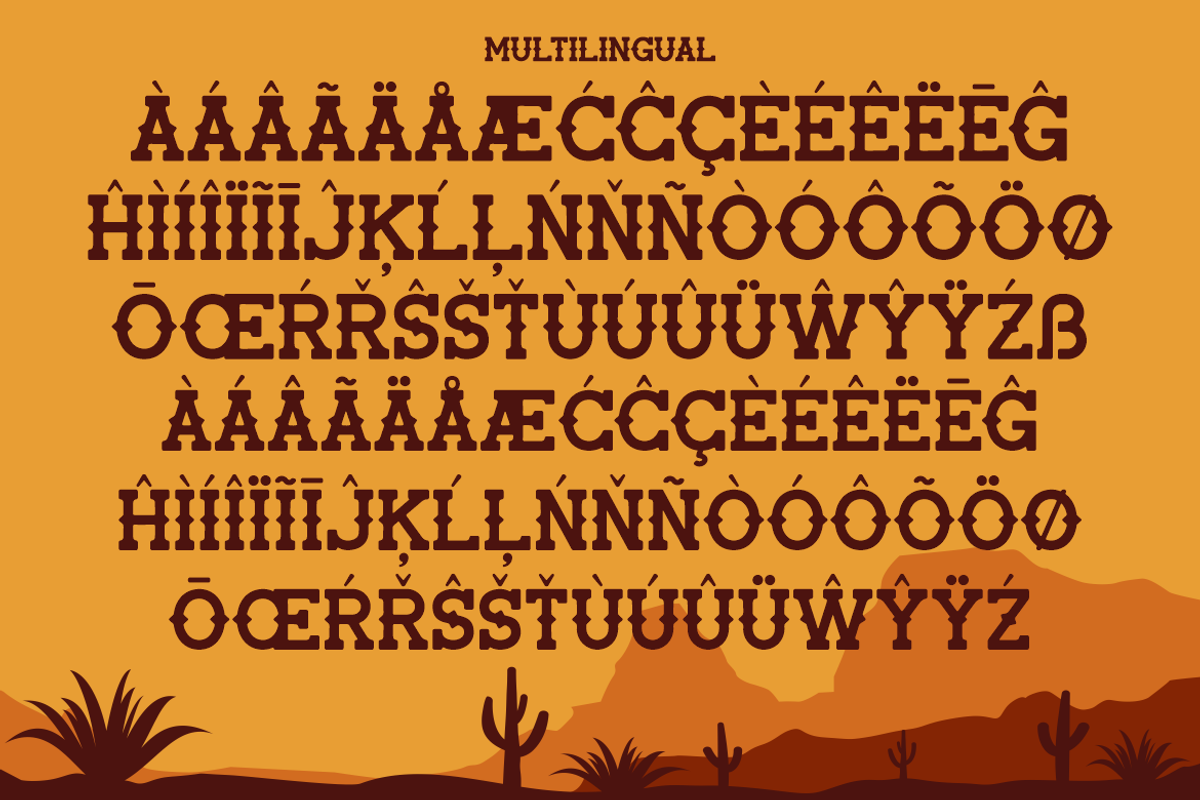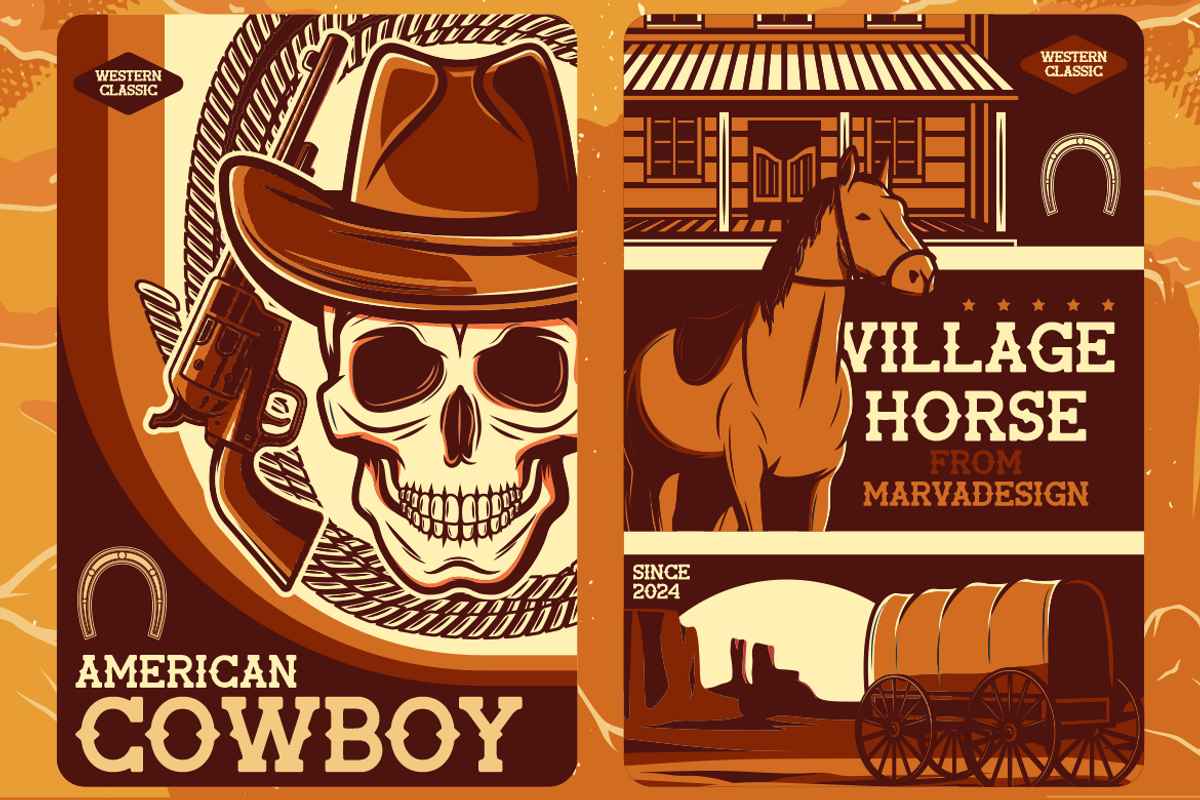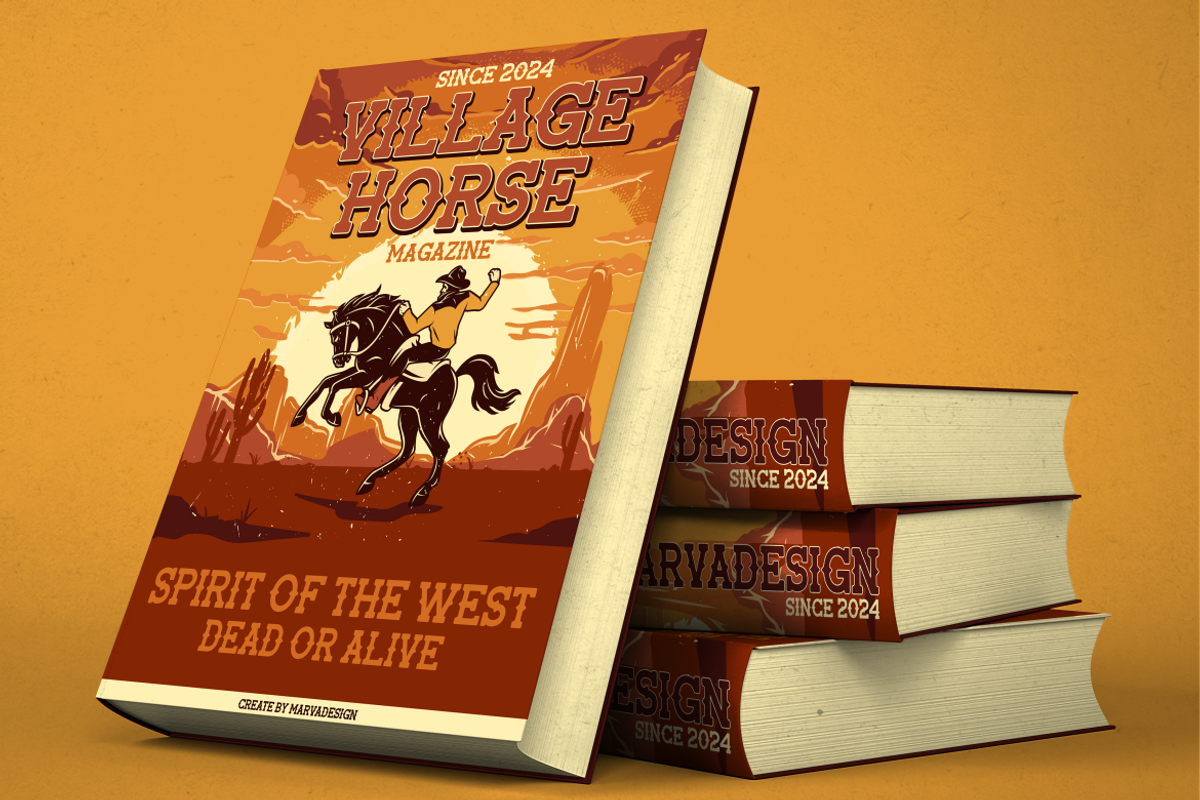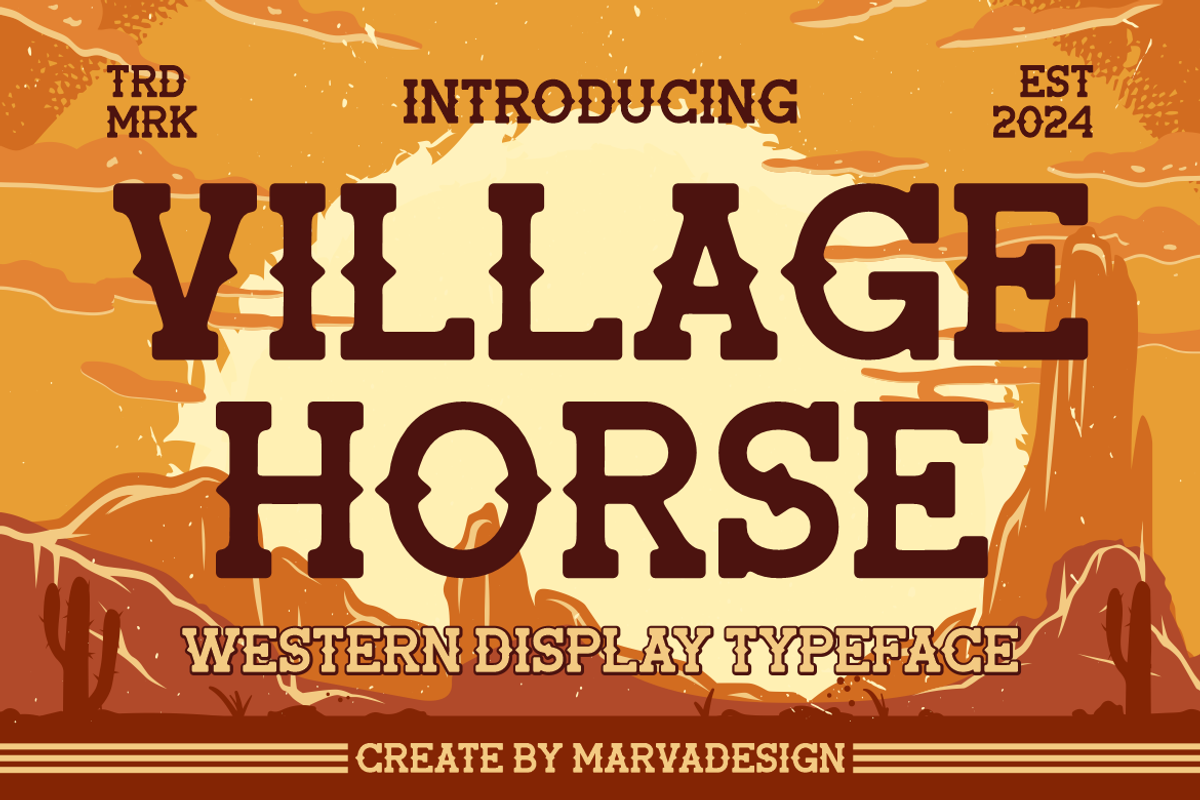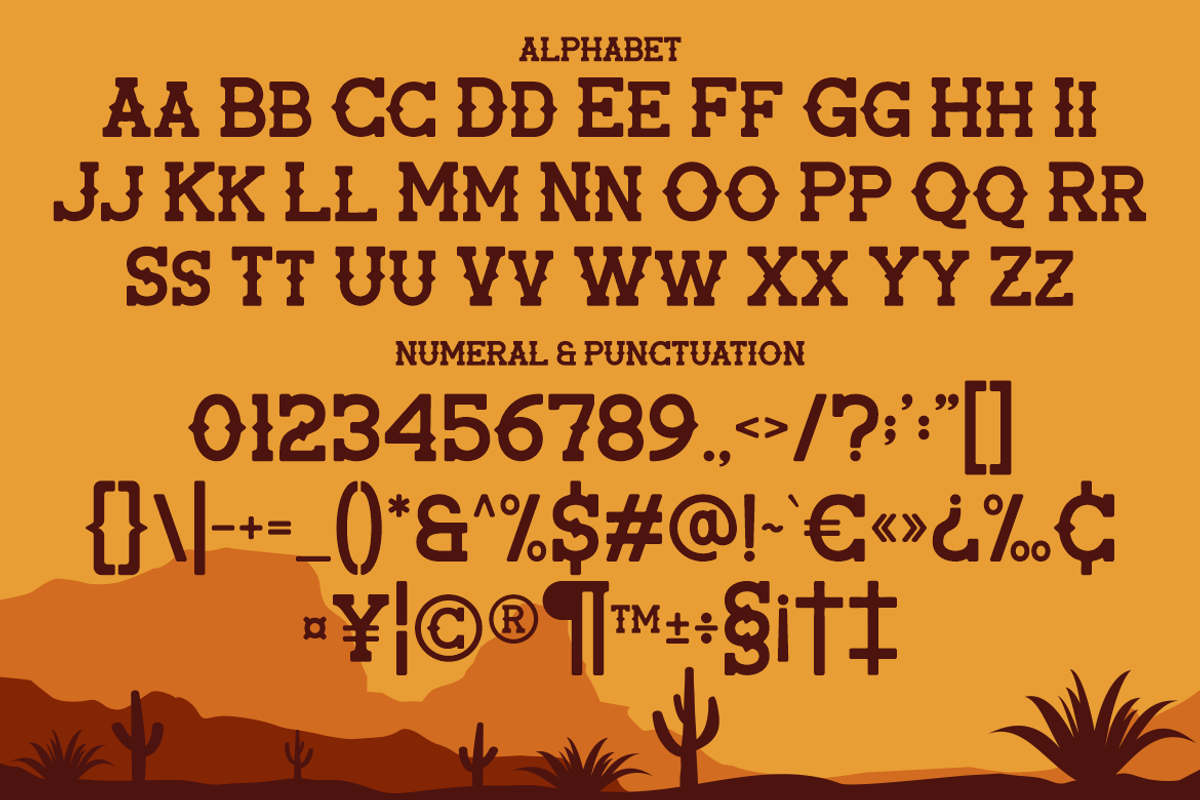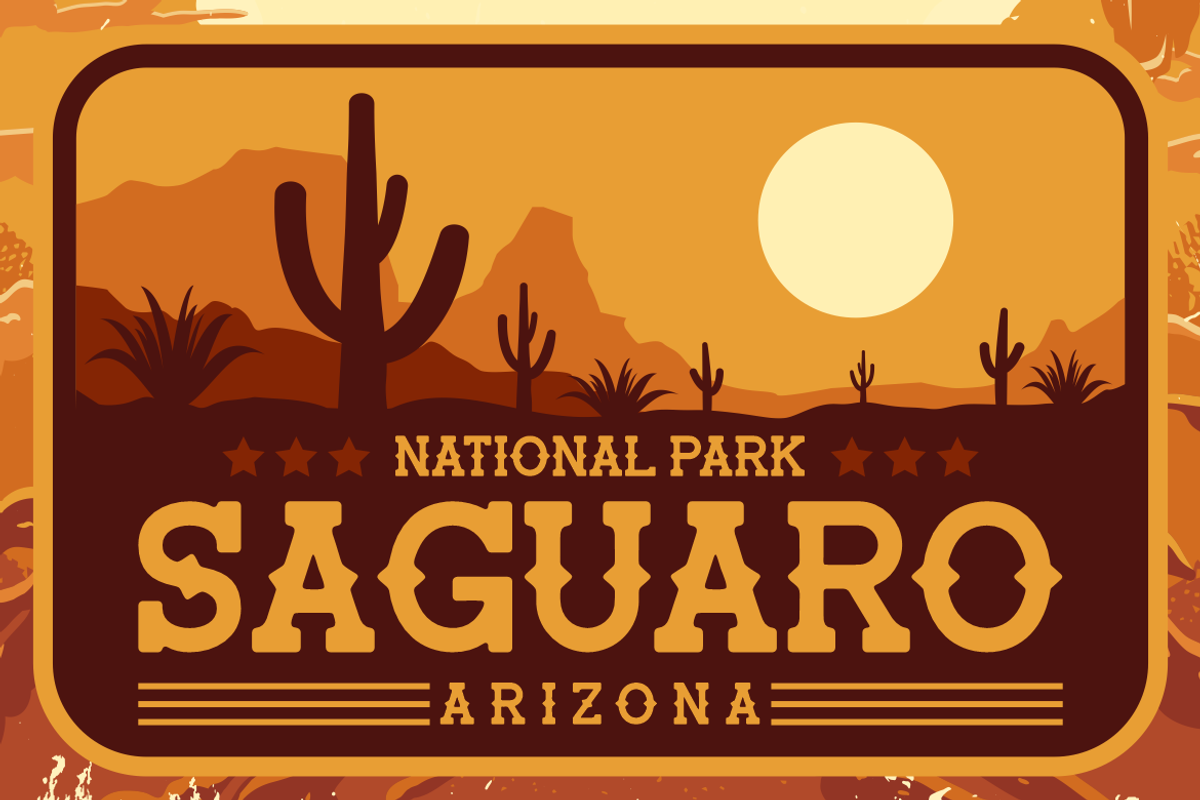
Village Horse - Western Display
Introducing our new product Village Horse - Western Display Font authentic display font. The font is suitable for any branding project like logo, Template Design, Product and many more. outstanding in a wide range of contexts.